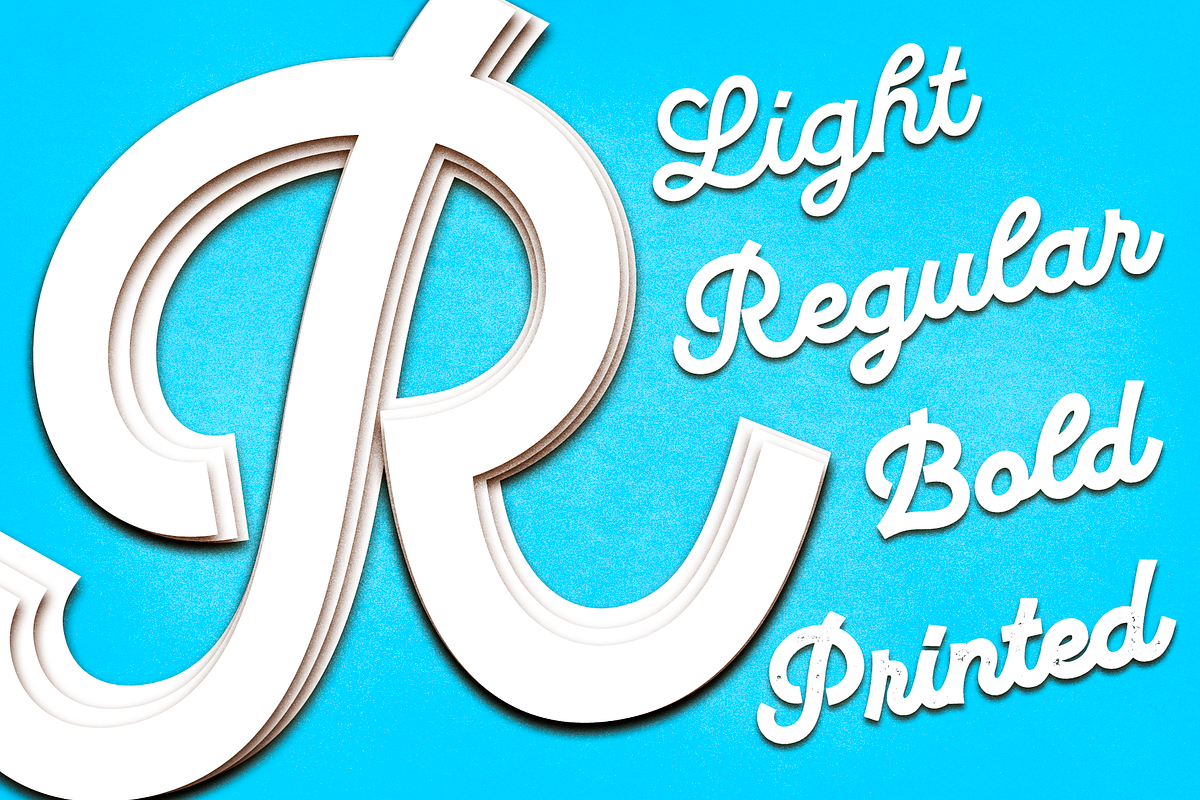
Marmalade
Marmalade Script by Uniontype is a modern multilingual type family inspired by vintage monoline fonts. The family consists of light, regular, bold and printed styles. Choose сolor and offset according to your taste. Marmalade Script provides advanced typographical support with contextual alternates, ligatures and swashes. That way, you’ll have automatic access to the dozens extra glyphs in each of the fonts. Marmalade Script is good for menu, signs, packaging, posters, letterings and logos.
UT Marmalade Family includes:
- UT Marmalade Light
- UT Marmalade Regular
- UT Marmalade Bold
- UT Marmalade Printed